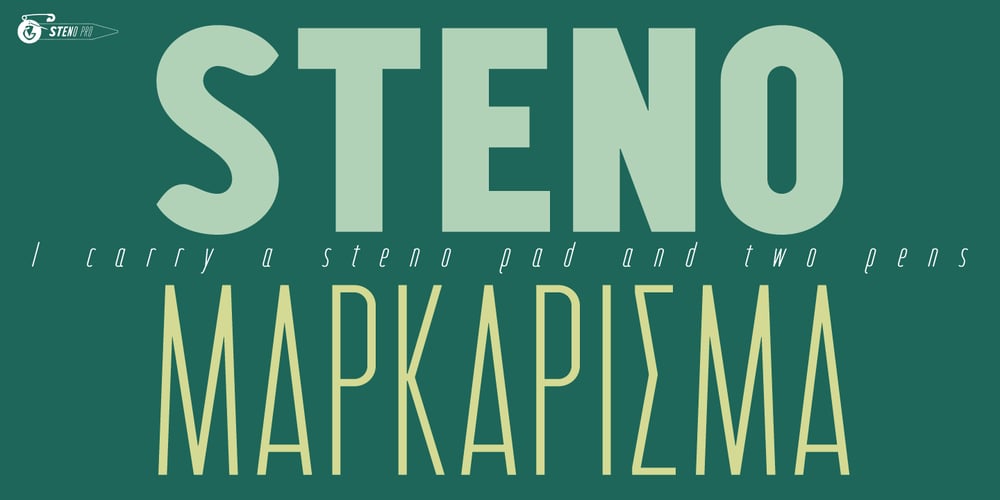
Steno Pro Font Family was designed by Vangelis Dim. Gardikiotis and published by DBSV. Steno Pro contains 12 styles and family package options. About family “StenoPro” Short for stenography…The name of the font was taken from the method of high-speed writing (shorthand) with a special alphabet. In shorthand, the rule “write as you hear” applies, that is, spelling is not observed. Capitalization, accents, ghosts, and punctuation except the semicolon are removed. In narrow letters you have the advantage of more words in a limited space…This series is composed and includes dozen fonts with 633 glyphs each, with true italics, and supports of course: Latin, Greek & Cyrillic.